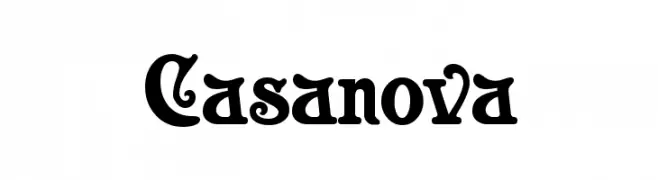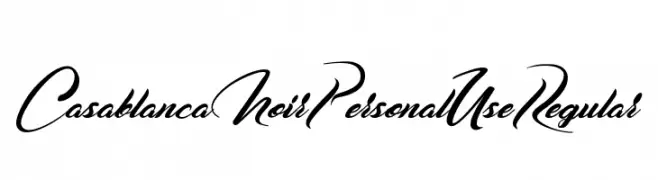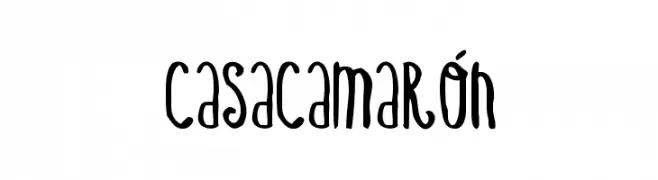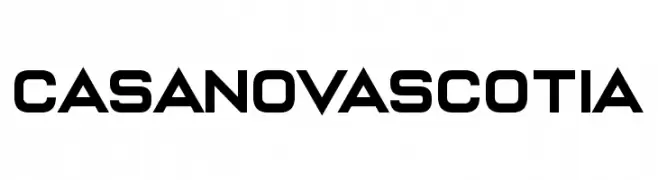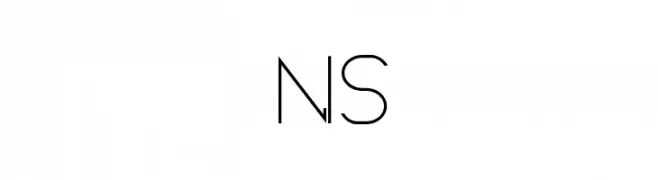
An ornate and decorative font with bold, swirling serifs and intricate detailing.
A bold, 3D-effect font with sketch-like strokes and a playful, artistic style.
A bold, hand-drawn font with textured diagonal lines and a playful style.
An elegant script font with flowing, cursive letters and calligraphic flair.
A playful, hand-drawn font with bold, rounded strokes and a whimsical style.
A bold, geometric, and modern font with a monospaced appearance.
A modern, geometric font with clean lines and a technical appearance.
A bold, dynamic script font with a strong, energetic presence.
A bold, dynamic font with sweeping strokes and a modern flair.